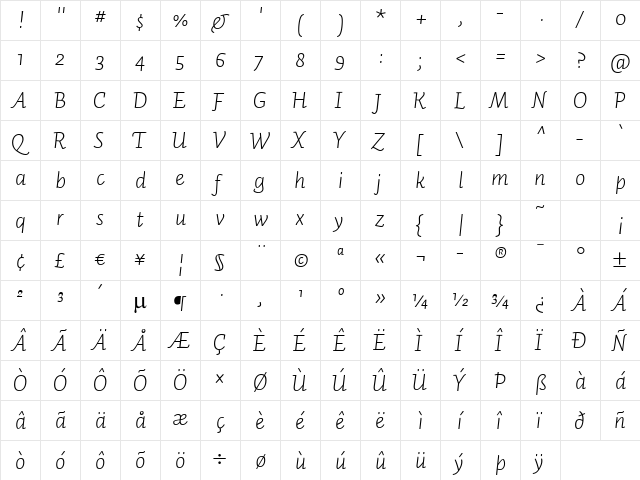
Auto 2 Light Italic Font Preview
Auto 2 Light Italic
Design Context for Auto 2 Typeface
Auto 2 is a composed and adaptable typeface that performs quietly and consistently across a wide range of design contexts. The dynamic lean of this cut emphasises speed and emphasis in any layout. The delicate stroke weight brings airiness and refinement to layouts.
Pro Tip: Try Auto 2 for annotation and caption copy alongside an upright companion — the contrast in angle creates a dynamic but ordered typographic system.